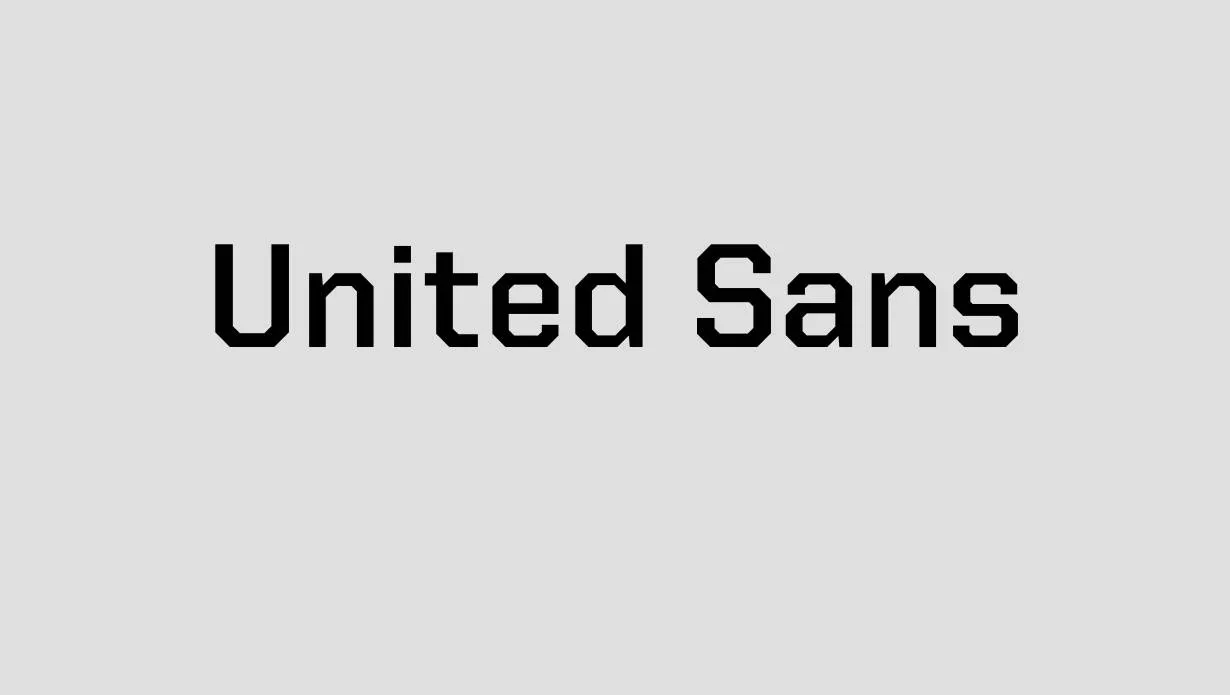
United Sans Reg Bold Font is a modern and versatile sans-serif typeface suitable for a wide range of design applications. Its bold and clean lines make it a practical choice for branding, advertising, web design, and packaging. This font adds a sense of contemporary style and impact to your design projects.
| Name | United Sans Reg Bold Font |
| Designer | Tal Leming |